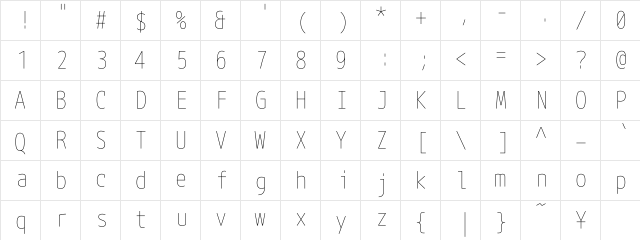
M+ 1mn thin Font Preview
M+ 1mn thin
Design Context for M+ 1mn Typeface
M+ 1mn offers clean, dependable letterforms without strong stylistic allegiance, making it a practical choice for designers who need flexibility. Its slender proportions lend an understated elegance to any composition.
Pro Tip: Pair M+ 1mn with a font of contrasting weight or personality to build a more expressive typographic hierarchy.